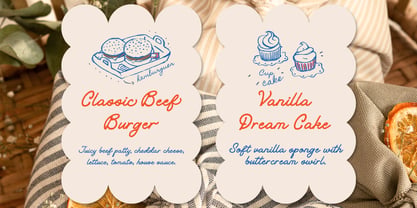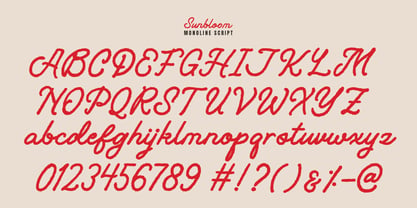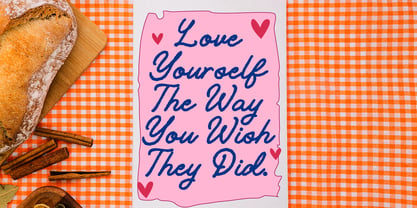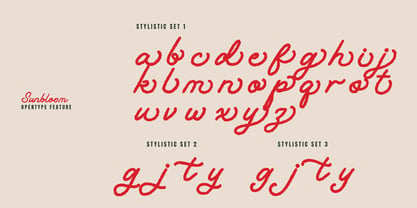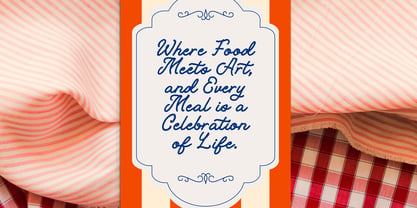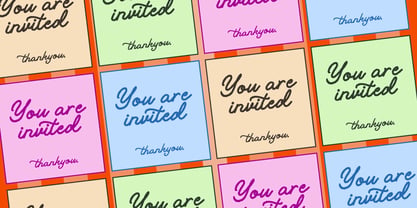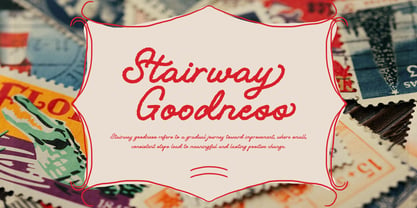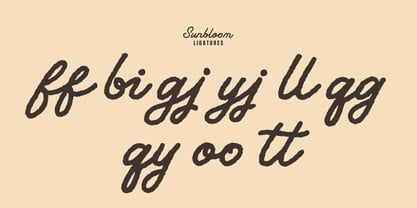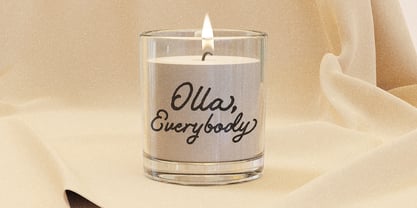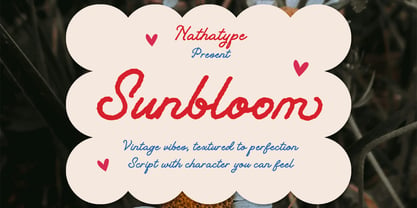
Sunbloom
by Nathatype
The Sunbloom Font Family was designed by Donis Miftahudin and published by Nathatype. Sunbloom contains 1 styles. More about this family
Sunbloom is a beautifully crafted textured script font. Inspired by classic signage, and handcrafted typography, Sunbloom blends elegance with a relaxed, free-flowing style. Its smooth curves and slightly rough edges create a perfect balance between sophistication and authenticity, making it ideal for designers seeking a vintage script font with personality. The textured finish adds depth and character, ensuring your designs feel rich, tactile, and visually engaging. In addition, enjoy the features here. Features: Ligatures Stylistic Sets Multilingual Supports PUA Encoded Numerals and Punctuations Sunbloom fits in invitations, logos, quotes, branding, posters, and many more designs. Find out more ways to use this font by taking a look at the font preview. Thanks for purchasing our fonts. Hopefully, you have a great time using our font. Feel free to contact us anytime for further information or when you have trouble with the font. Thanks a lot and happy designing.